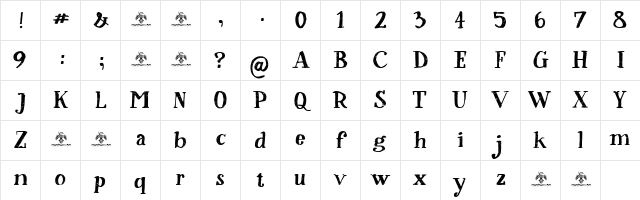
Sorsod Borsod Demo Regular
Design Context for Sorsod Borsod Demo
Sorsod Borsod Demo is a composed and adaptable typeface that performs quietly and consistently across a wide range of design contexts.
Pro Tip: Use Sorsod Borsod Demo in both headline and body roles to test its range before committing to a single application.